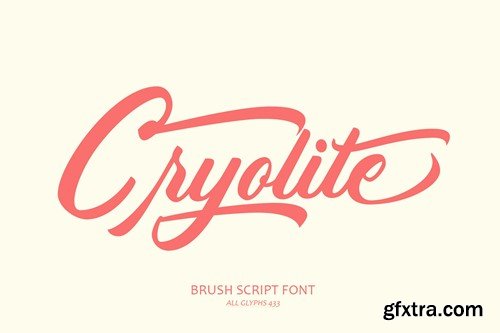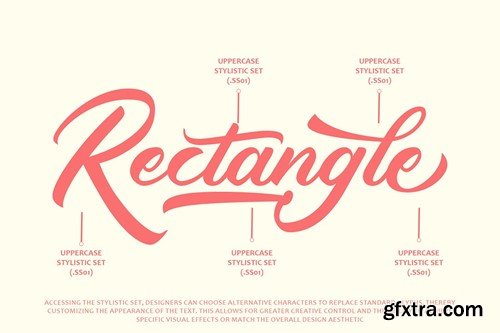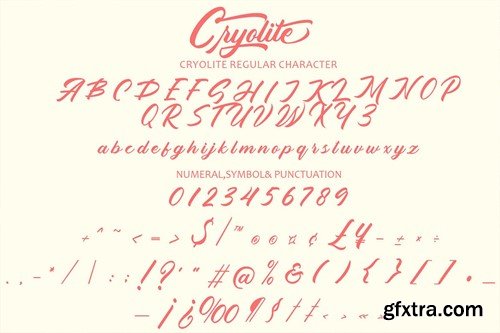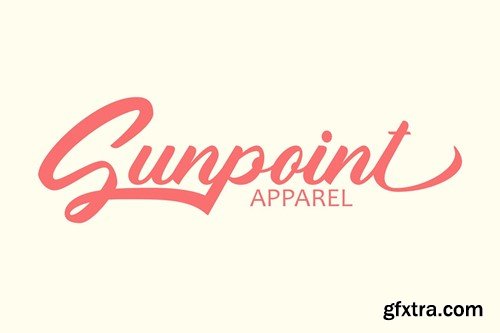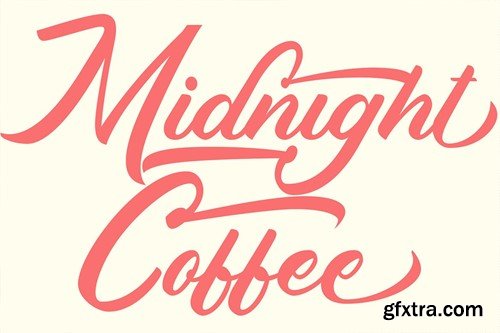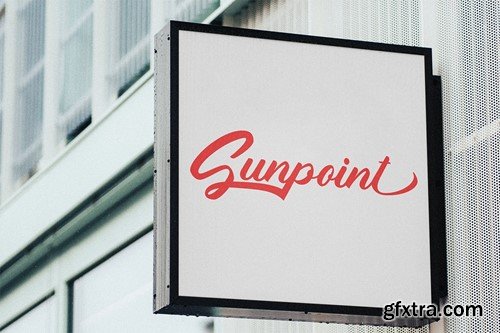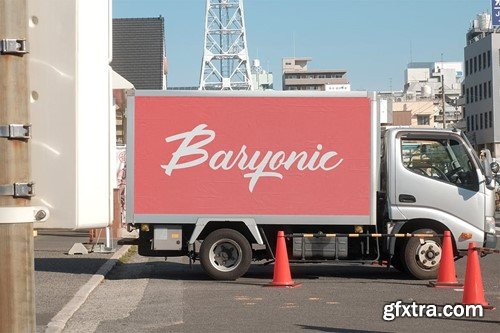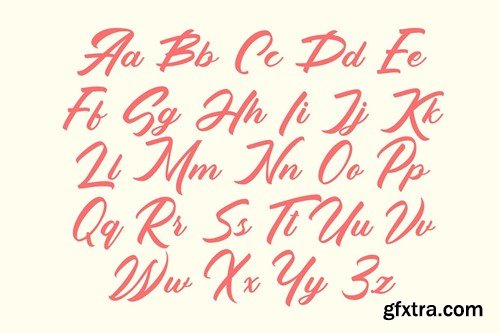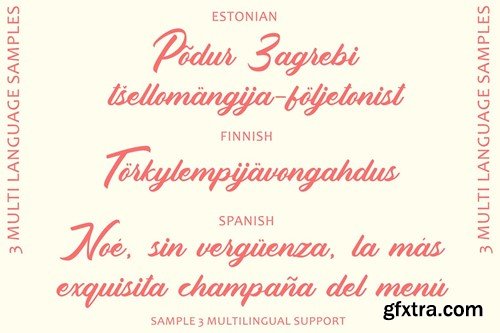
CRYOLITE - BRUSH SCRIPT FONT SHMKV6Y
"Cryolite - Brush Script Font" is a dynamic and expressive typeface that captures the essence of hand-painted brush strokes, making it a versatile choice for a wide range of design projects. Here's an explanation of its key features: Expressive Brush Strokes: "Cryolite" replicates the fluid and spontaneous strokes of a brush, giving it a lively and organic appearance. The font's brush script style adds a sense of energy and movement to typography, making it ideal for designs that require a dynamic and expressive touch. Natural Texture: "Cryolite" features natural textures and imperfections characteristic of hand-painted lettering. These subtle variations in texture add authenticity and depth to the font, enhancing its visual appeal and giving it a tactile quality. Versatility: Despite its casual appearance, "Cryolite" is versatile and adaptable to various design contexts. Whether used for branding, packaging, posters, invitations, or social media graphics, the font adds a touch of warmth and personality to any project. Customization: "Cryolite" may offer options for customization, such as alternate characters, ligatures, or swashes, allowing designers to tailor the typography to their specific design preferences. This flexibility enables creative experimentation and customization to achieve the desired look and feel. Expressive Typography: "Cryolite" allows designers to convey emotion, spontaneity, and personality through typography. Its brush script style lends itself to expressive and informal designs, making it suitable for conveying a sense of warmth, friendliness, or playfulness. what you get : 1.file format .OTF 2.file format .TTF 3.file format .woff + .woff2 Feature Font : 1.Upercase & lowercase 2.Numeral Character 3.Symbol + Punctuation 4.Multilingual Support 5.stylistic set (.ss01-ss04) 6.Ligature Feature Overall, "Cryolite - Brush Script Font" is a versatile and expressive typeface that adds a touch of spontaneity and character to design projects. Its dynamic brush strokes, natural textures, and versatility make it a valuable asset for designers seeking to create lively and engaging typographic compositions.